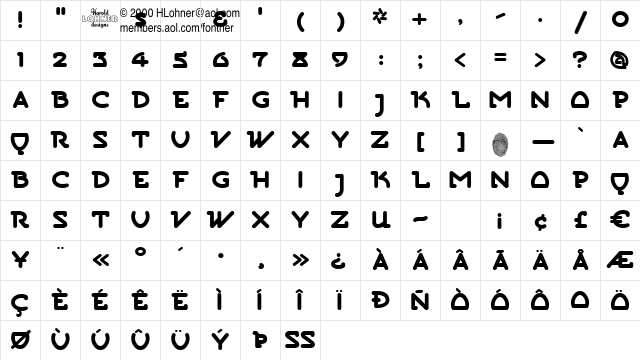
SanitaryBold Caps Regular Free Font
SanitaryBold Caps Regular
Copyright: Sanitary Bold Caps computer font ©2000 Harold Lohner "  " http://members.aol.com/fontner Based on an old product label for "Pepsodent Antiseptic."
Design Context for SanitaryBold Caps
SanitaryBold Caps is a composed and adaptable typeface that performs quietly and consistently across a wide range of design contexts. Its bold stroke weight gives it real presence on the page.